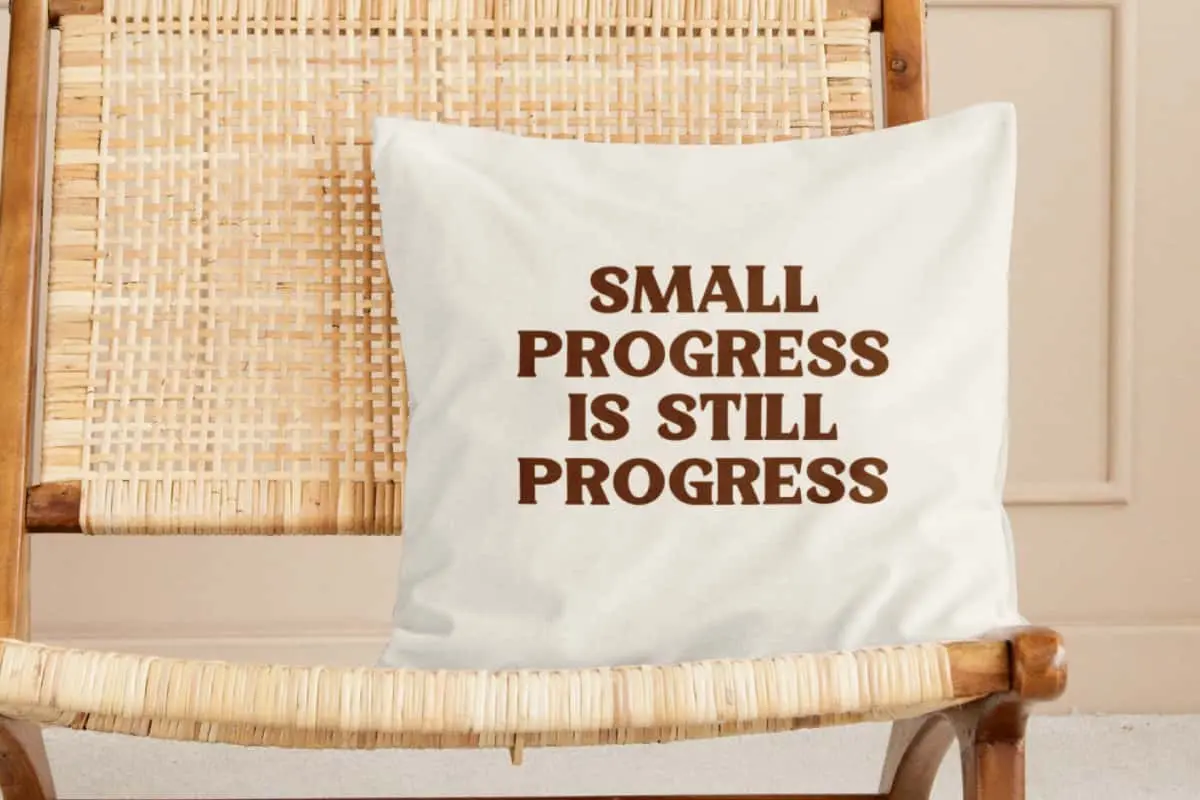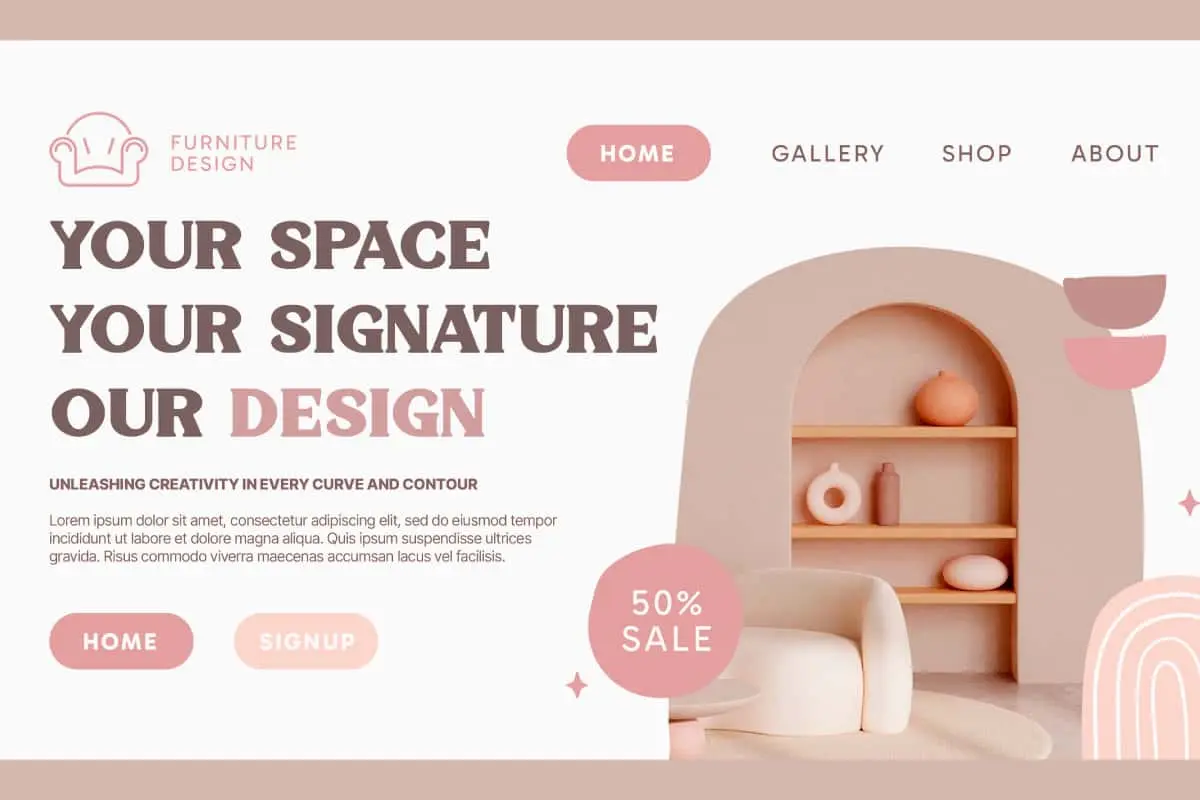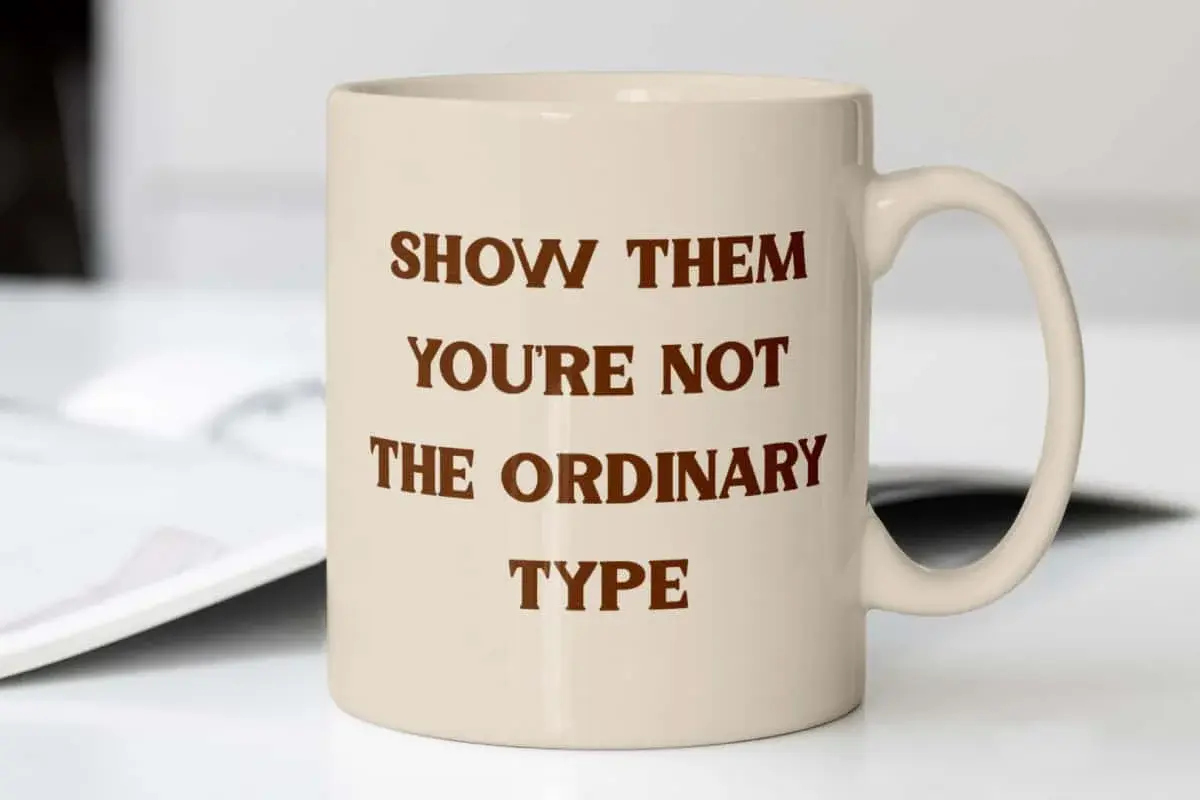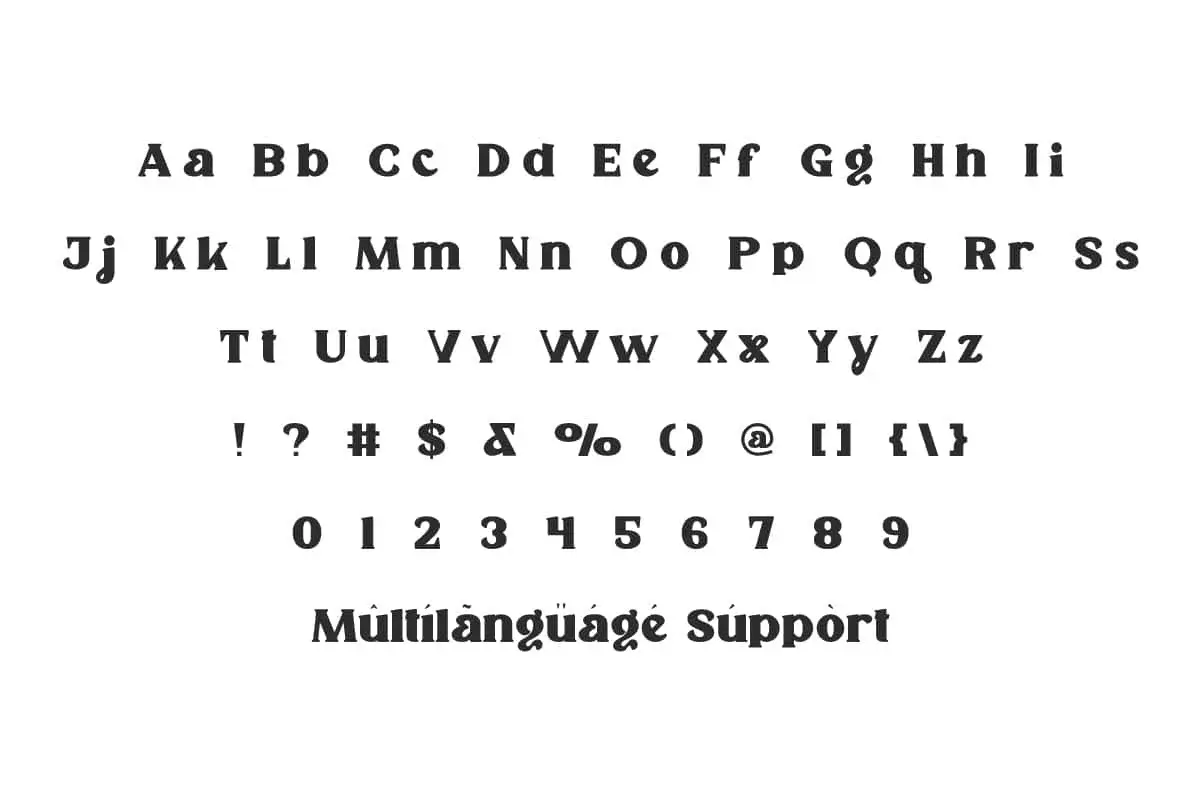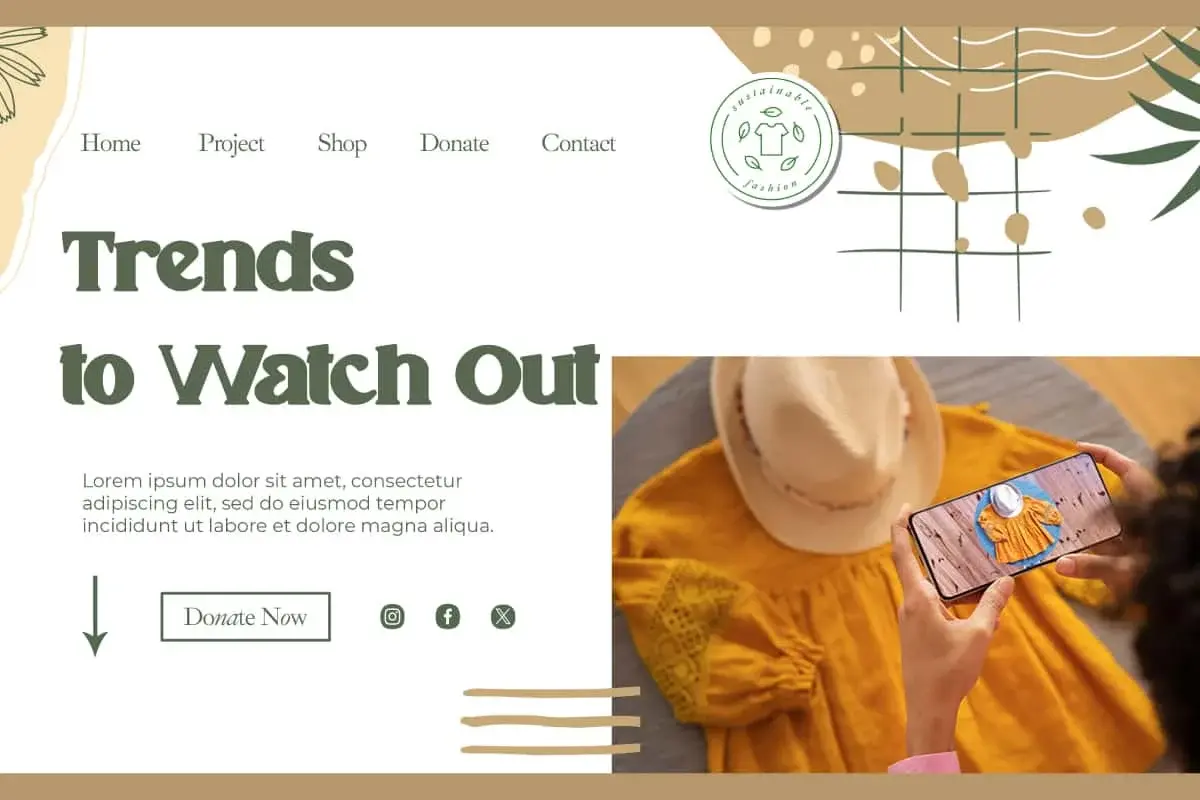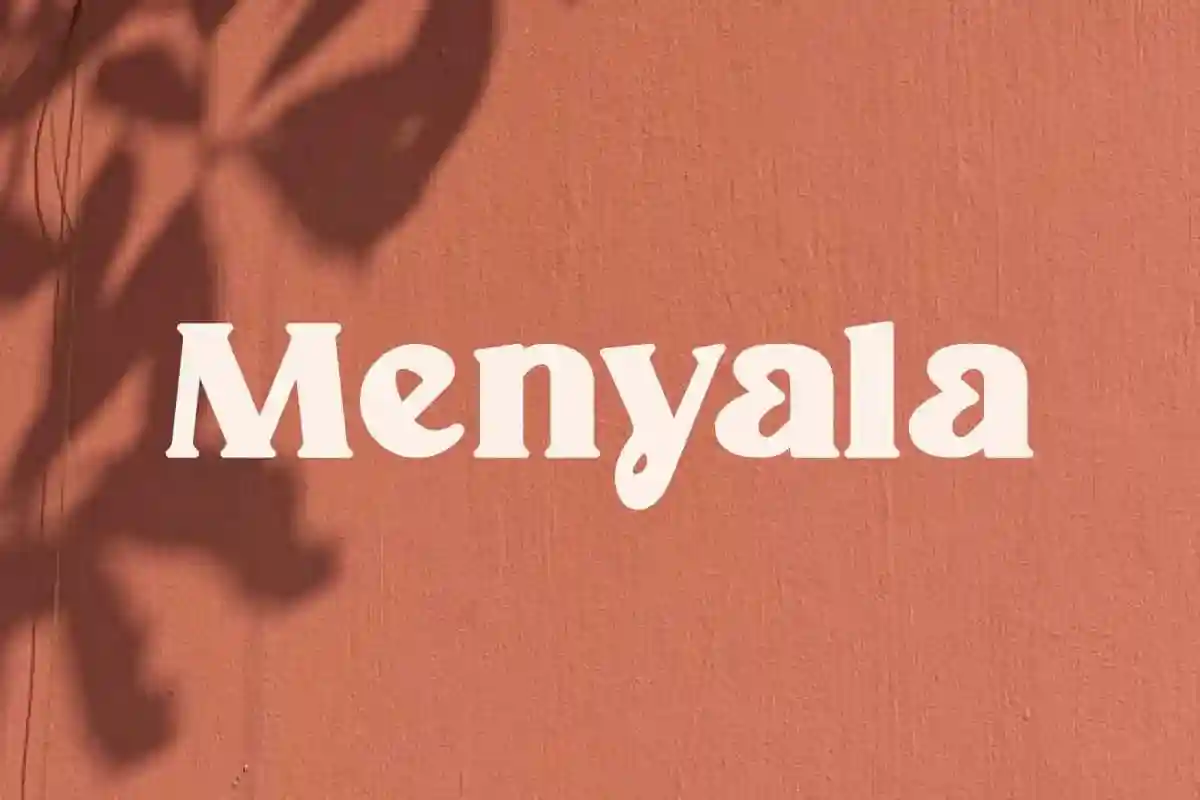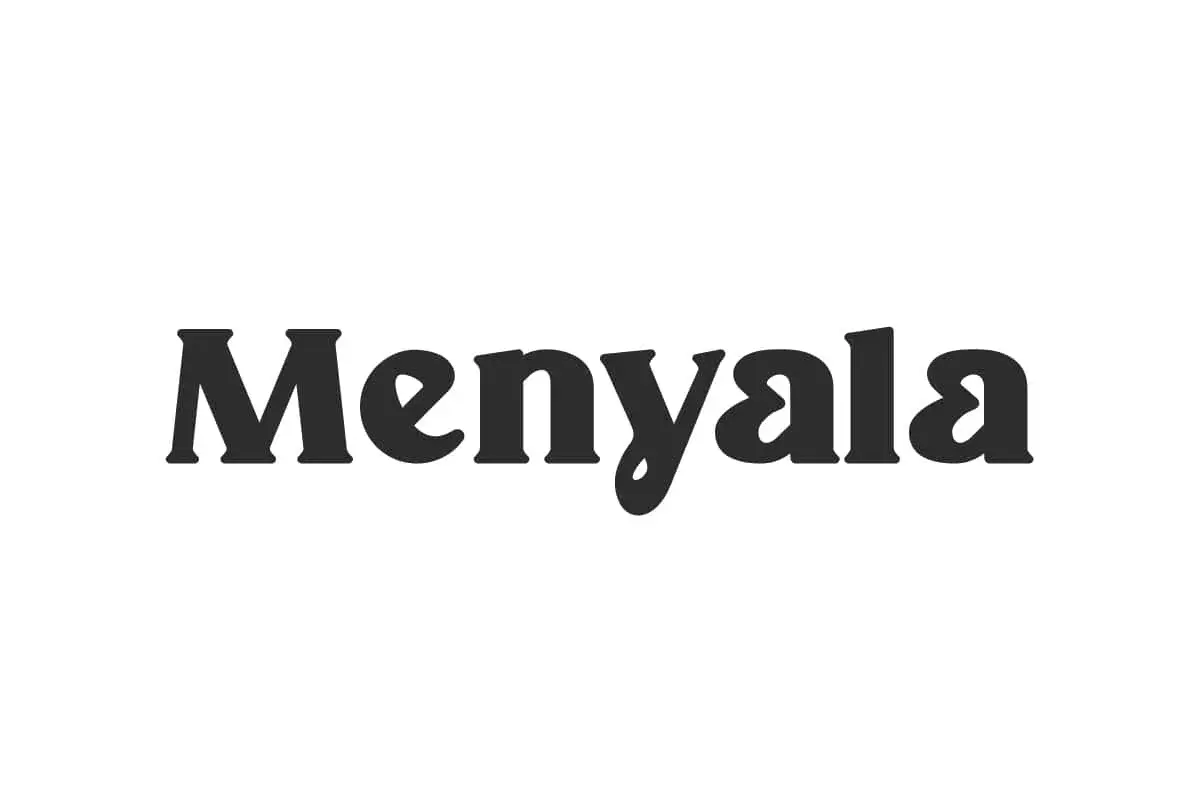
Menyala Font is a fun yet strong display font that brings a harmonious feel with a special design that is attractive. This font is flexible to use in any design!
Menyala Font is a fun yet strong display font that is specifically designed to give a new feel to the serif type. Perfect for banners, billboard, blogs, brand logo, brochure, covers, headline, label, mockup, packaging, poster, printed materials, quotes, stickers, titles, template, website, and more.
Menyala Font includes full set of Uppercase and Lowercase Basic Characters, Numbers, Punctuation, and Symbols. This perfect font will be very useful in any creative design that wants to have a harmonious and stylish feel. It will be very suitable for advertising, apparel, fashion, graphic design, handicraft, interior design, home furniture, printing, publishing, web designer, etc.